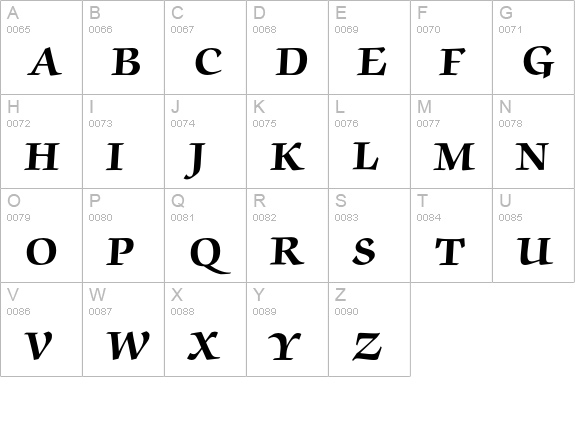
ZapfChanceryEF-Bold is a strong, high-contrast variant in the ZapfChanceryEF typeface family \xE2\x80\x94 well suited to headlines, attention-grabbing titles, and strong calls-to-action.
ZapfChanceryEF-Bold is a stunning and elegant font that exudes sophistication and charm. With its bold weight, it commands attention and makes a strong visual impact. The timeless design of this font makes it a versatile choice for a wide range of projects, from branding and advertising to invitations and packaging. What makes ZapfChanceryEF-Bold even more appealing is that it is available for free! You can easily download this font at FontsMarket.com and start using it in your designs right away. Don't miss out on the opportunity to add this beautiful and stylish font to your collection.